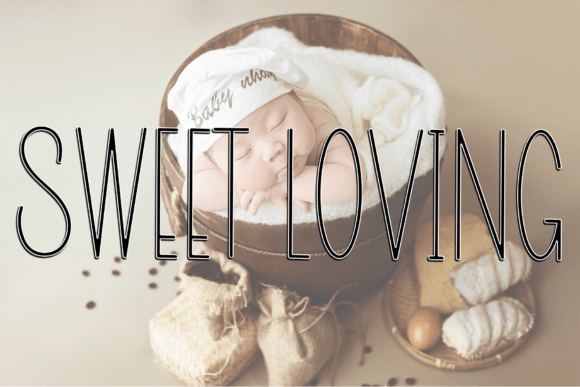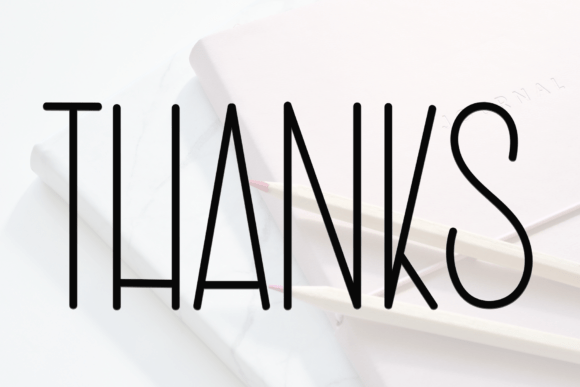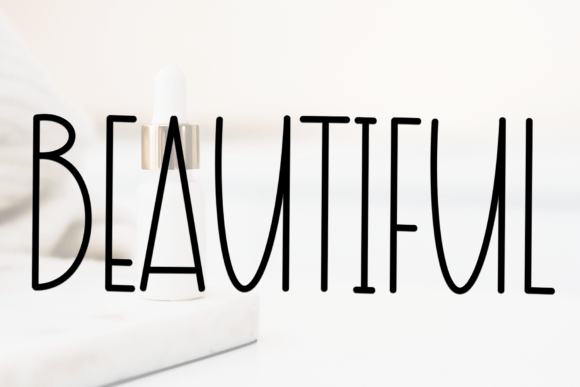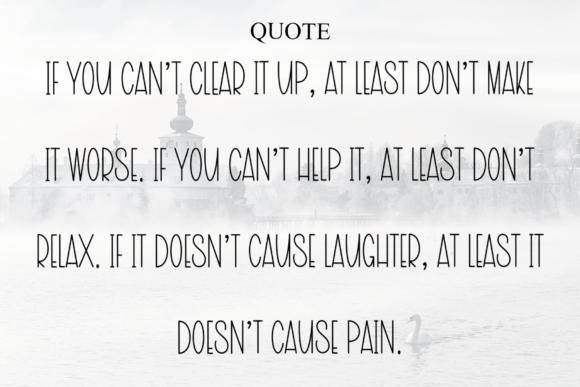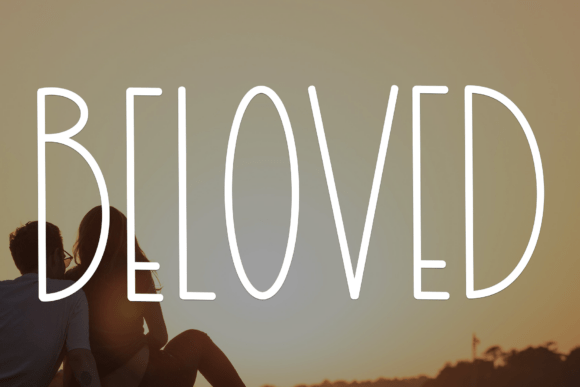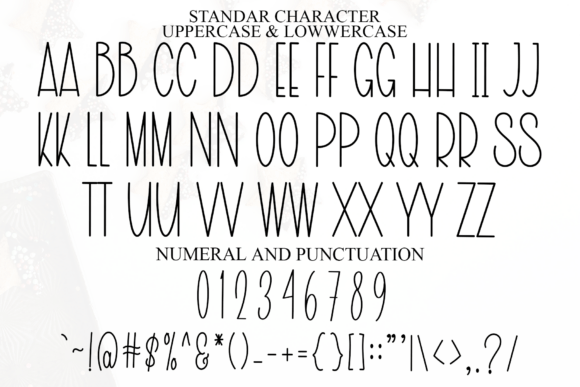
Introducing Autography Font: The Ultimate Holiday Typeface
The holiday season is upon us, and what better way to get into the spirit than with a festive and merry typeface? Look no further than Autography Font, a decorative font that captures the essence of the holiday season with its whimsical flair and enchanting charm. In this article, we’ll dive into the world of Autography Font, exploring its features, uses, and benefits for designers and crafters alike.
Autography Font is a beautifully crafted typeface that embodies the joy and magic of the holiday season. Its decorative elements and whimsical flair make it the perfect addition to any holiday-themed project. Whether you’re designing greeting cards, gift tags, or festive posters, Autography Font is sure to bring a cheerful and nostalgic ambiance to your words.
Autography Font is specifically designed for holiday-themed projects, making it an ideal choice for designers and crafters looking to add a touch of festive flair to their work. Some popular uses for Autography Font include:
- Greeting cards: Create personalized and festive greeting cards for friends and family.
- Gift tags: Add a touch of elegance and whimsy to your gift tags with Autography Font.
- Holiday posters: Create eye-catching posters and flyers for holiday events and promotions.
- Social media graphics: Add a festive touch to your social media graphics and posts.
One of the standout features of Autography Font is its PUA (Private Use Area) encoding. This means that you can access all of the amazing glyphs and ligatures with ease, giving you complete creative control over your typography. With PUA encoding, you can:
- Access a wide range of glyphs and ligatures.
- Easily switch between different characters and symbols.
- Create unique and personalized typography.
Autography Font offers a range of benefits for designers and crafters, including:
- Ease of use: With its PUA encoding, Autography Font is easy to use and navigate, even for those with limited design experience.
- Customization: With a wide range of glyphs and ligatures at your disposal, you can create unique and personalized typography that reflects your brand or style.
- Time-saving: Autography Font saves you time and effort, allowing you to focus on the creative aspects of your project rather than designing from scratch.
- High-quality design: Autography Font is designed to high standards, ensuring that your typography looks professional and polished.
Tips for Using Autography Font
To get the most out of Autography Font, here are a few tips to keep in mind:
- Experiment with different sizes and colors: Autography Font looks great in a range of sizes and colors, so don’t be afraid to experiment and find the perfect combination for your project.
- Mix and match glyphs and ligatures: With a wide range of glyphs and ligatures at your disposal, try mixing and matching different characters to create unique and personalized typography.
- Use it for headlines and titles: Autography Font is perfect for headlines and titles, adding a touch of festive flair to your text.
Autography Font is a beautifully crafted typeface that captures the spirit of the holiday season. With its decorative elements, whimsical flair, and PUA encoding, it’s the perfect addition to any holiday-themed project. Whether you’re a designer or crafter, Autography Font is sure to bring a touch of enchantment and magic to your words. So why wait? Download Autography Font today and let your typography shine with the magic of Beautiful Font!